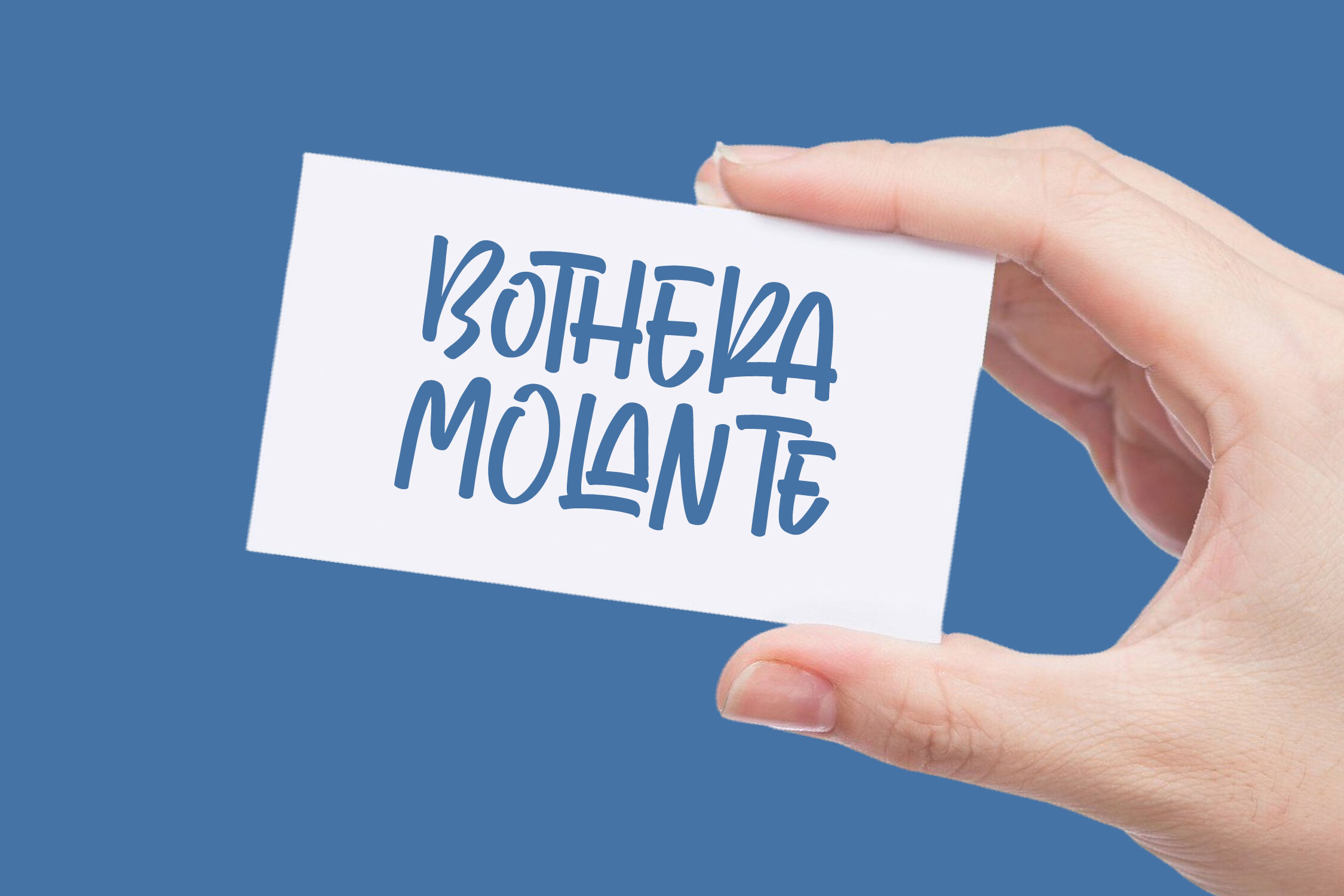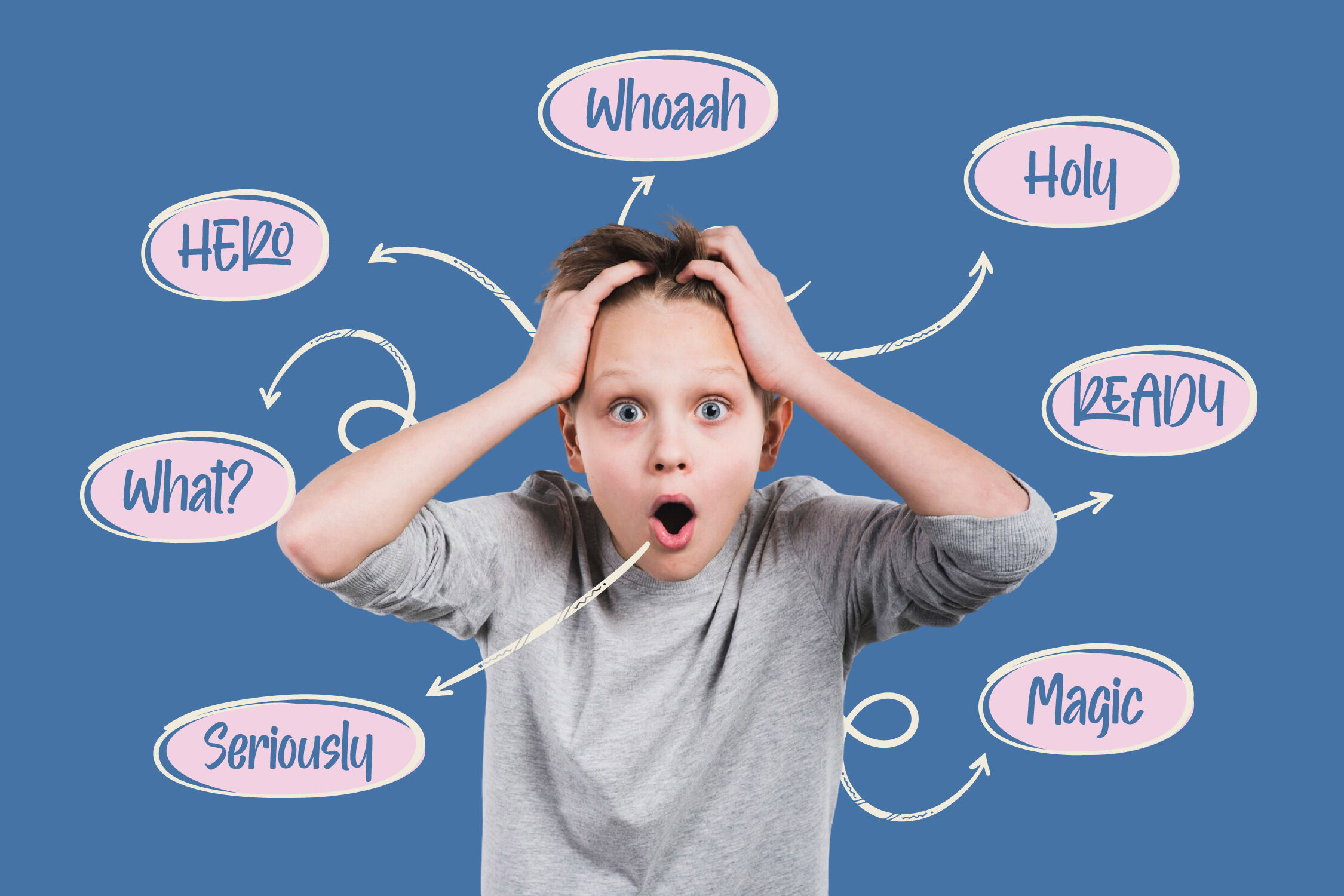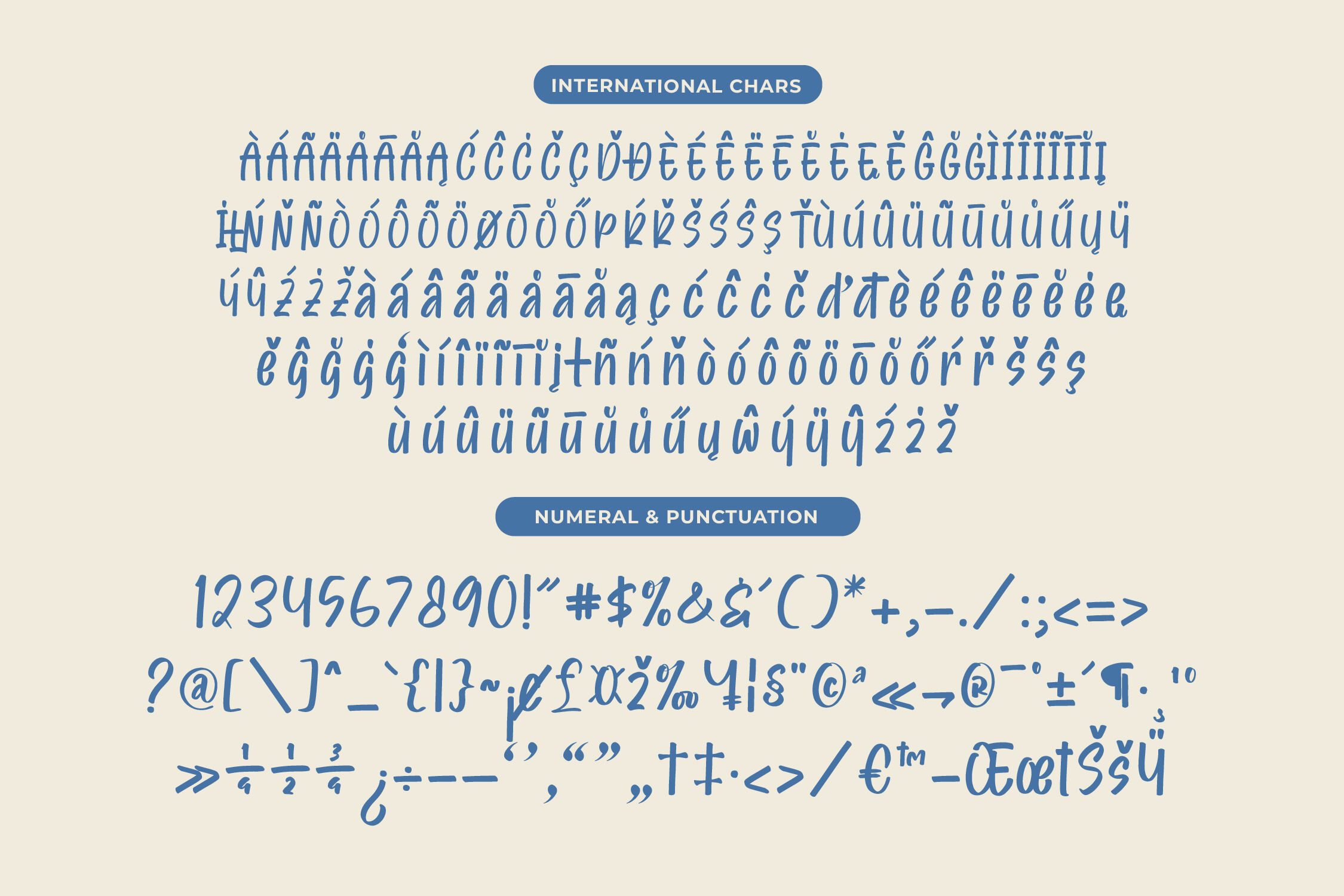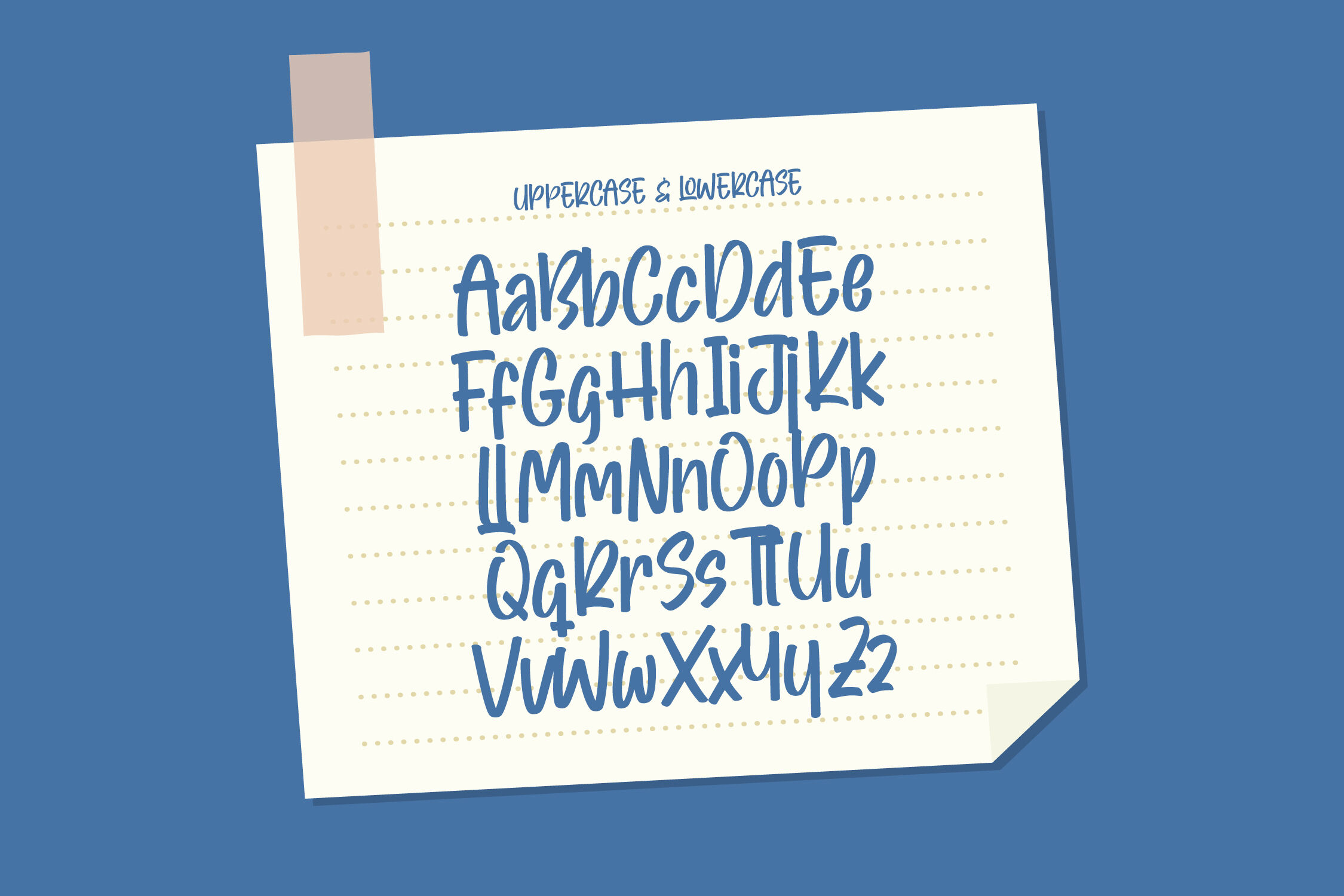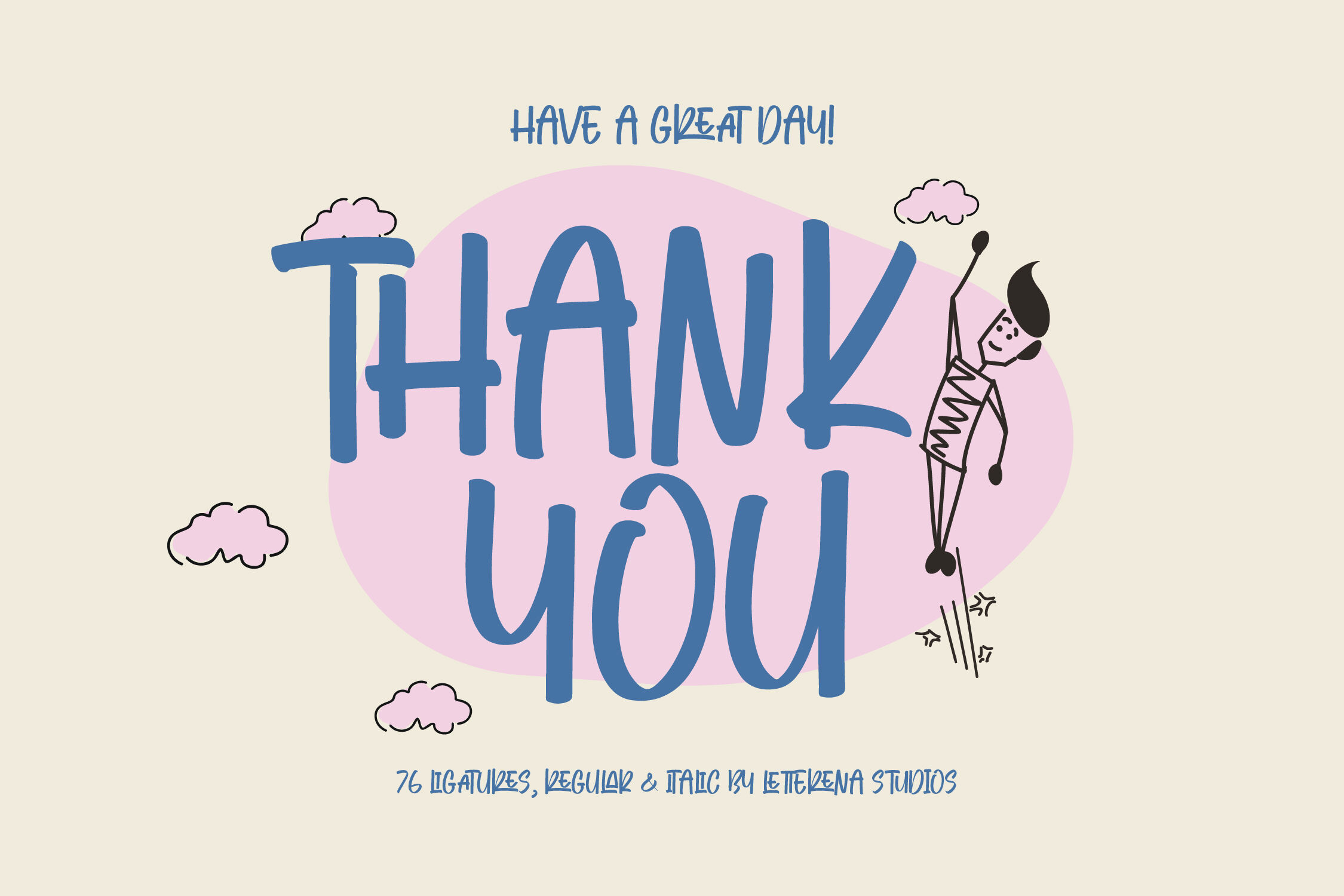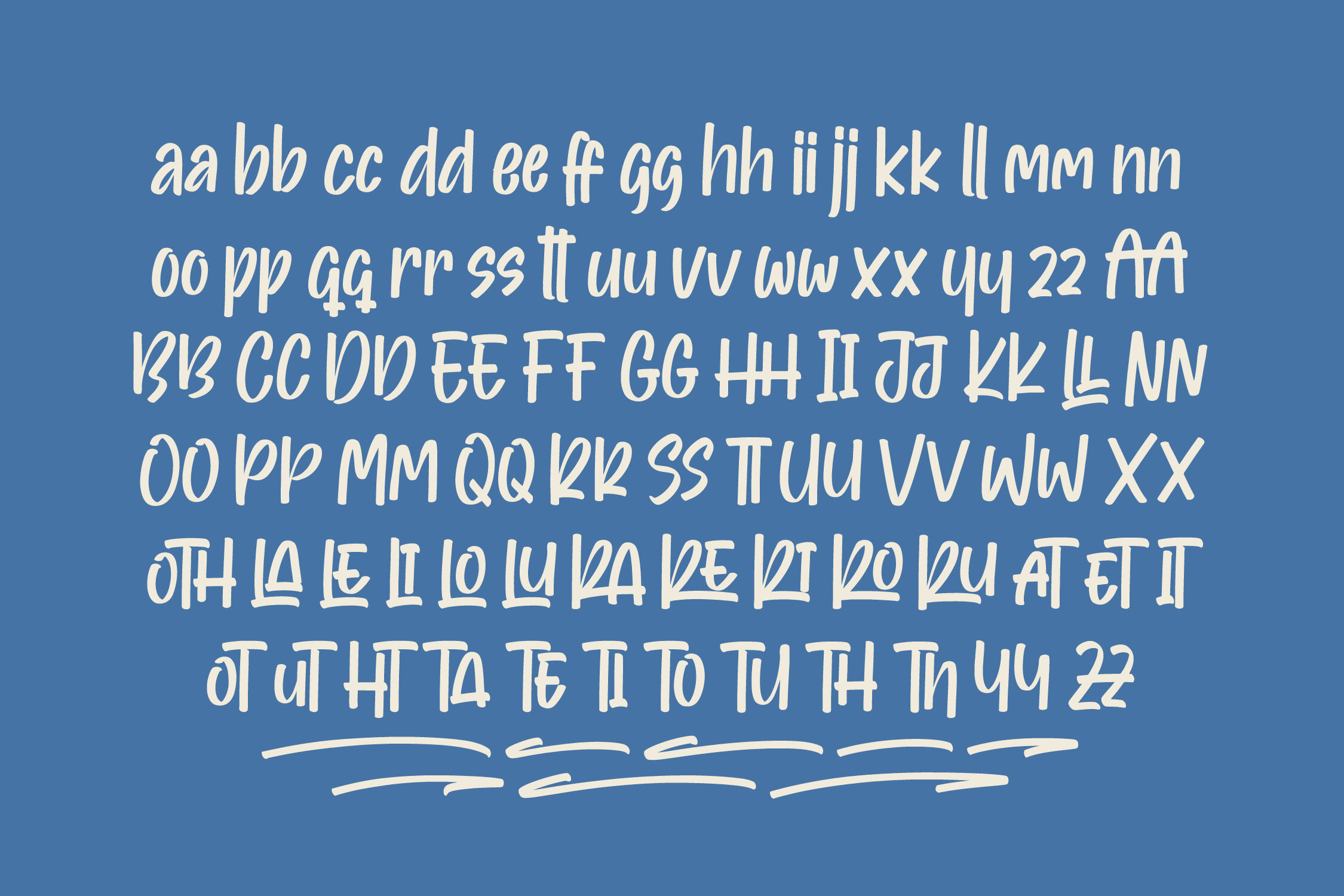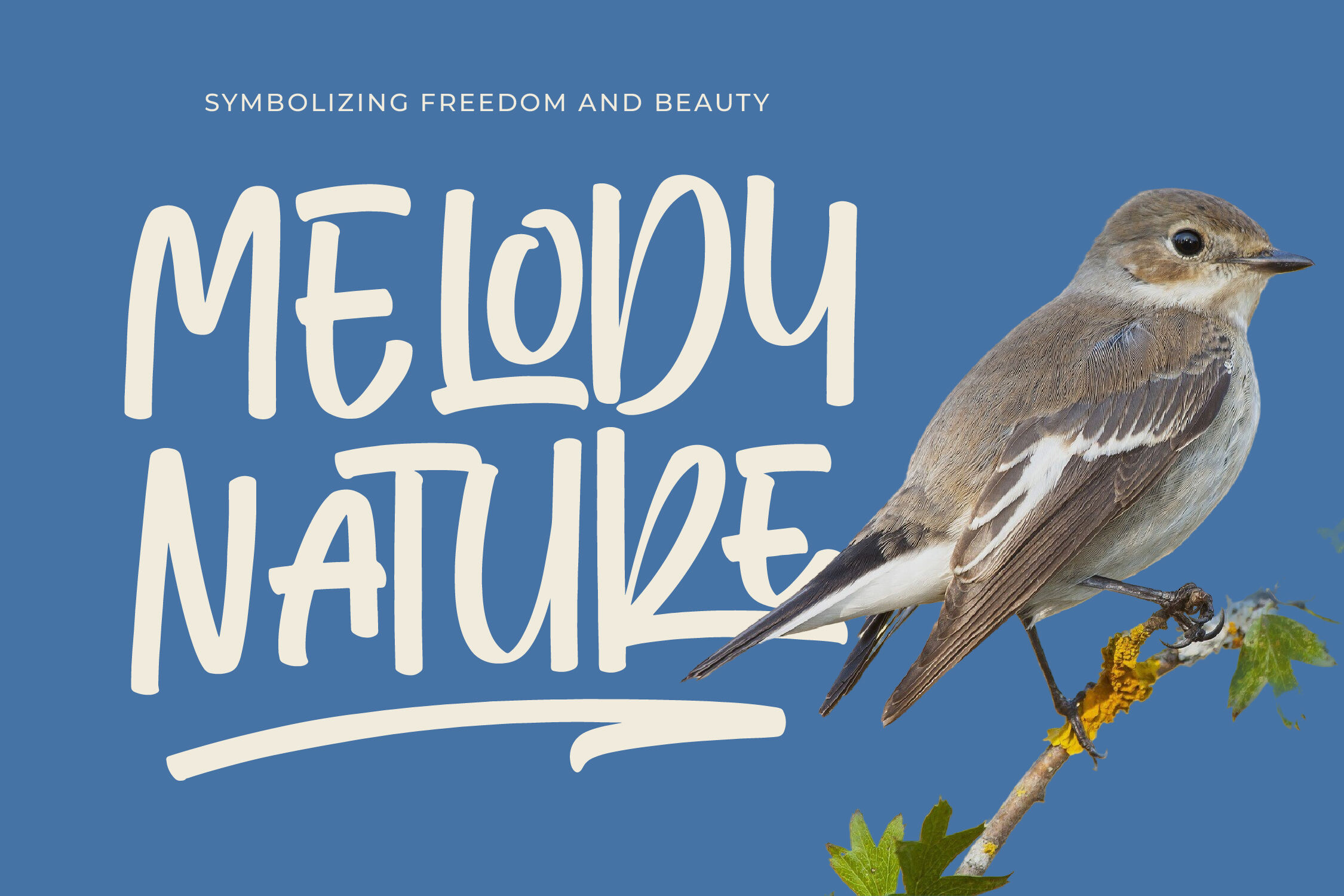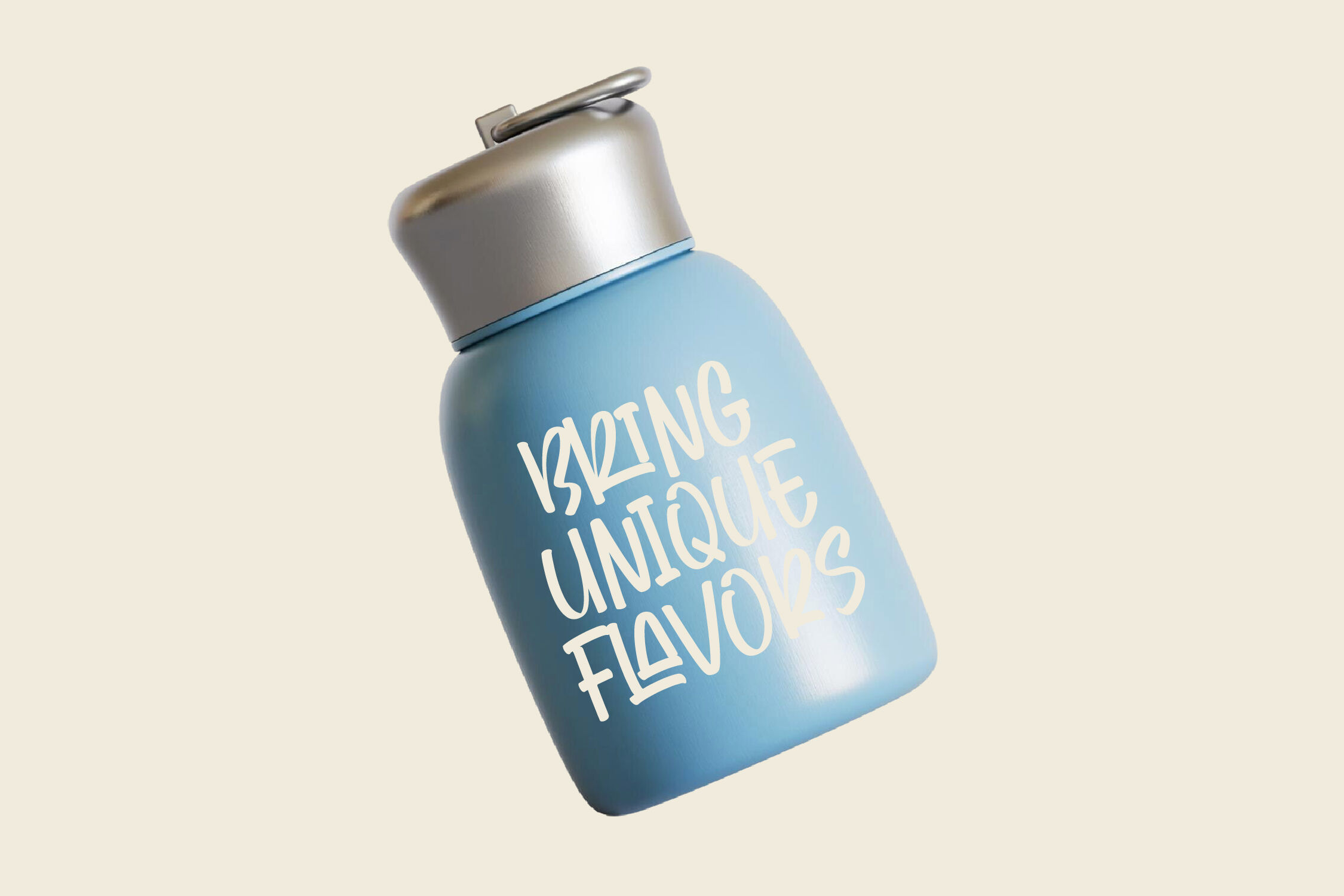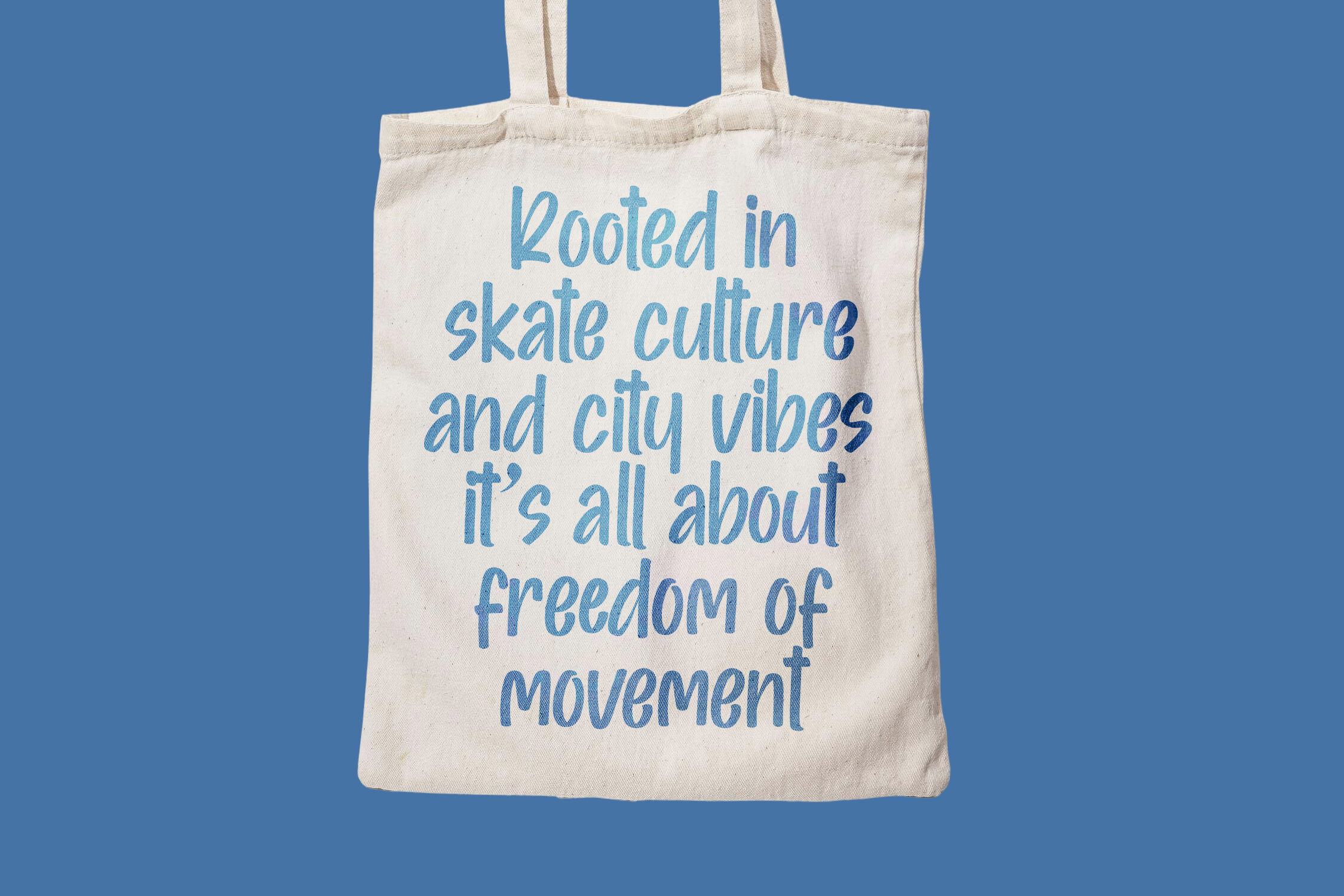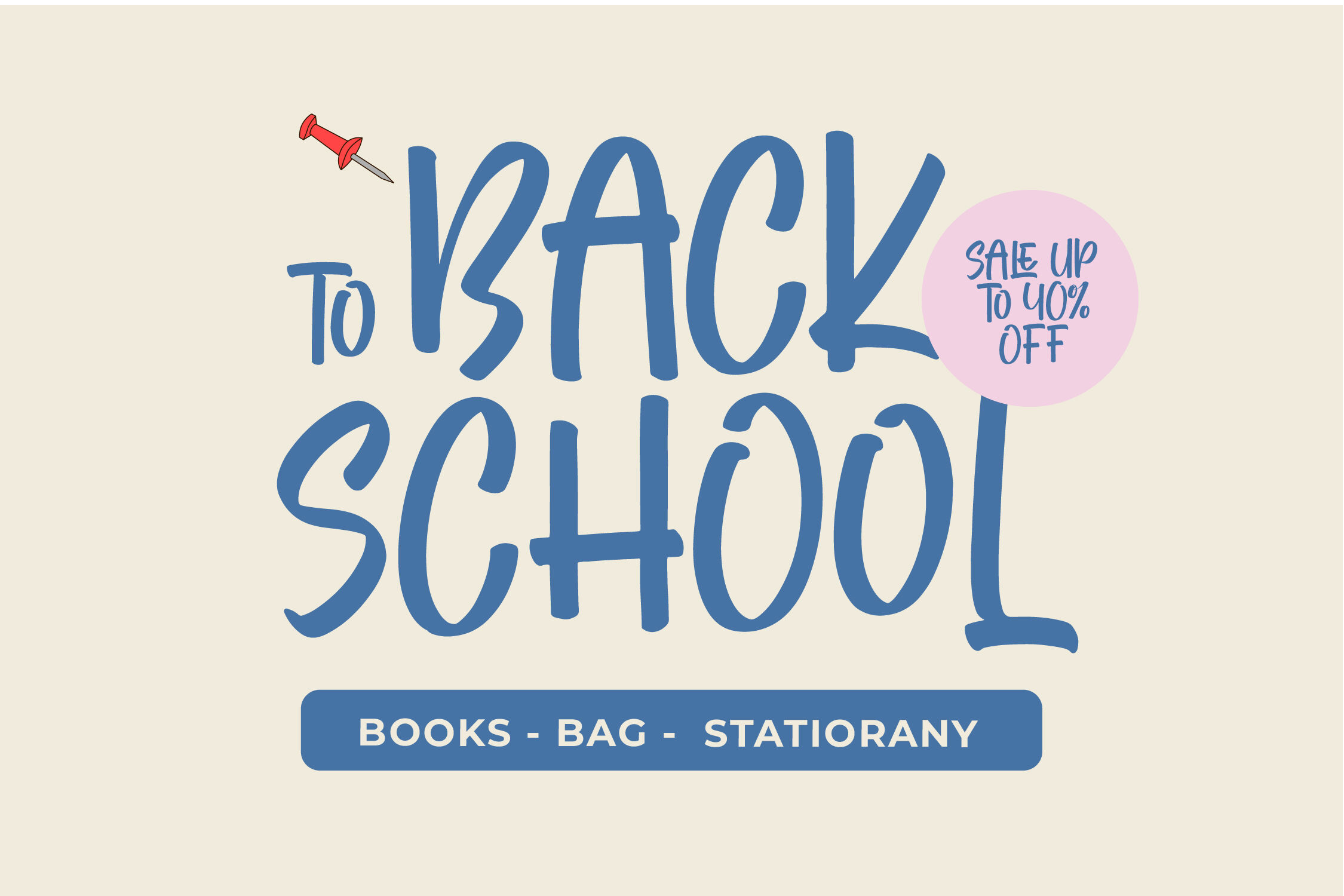
Smooth Dreams - Sticky Notes Font
Smooth Dreams - Sticky Notes Font , from Letterena, is a Luxury Script font, suitable for any projects such as: logos, branding projects, homeware designs, product packaging, mugs, quotes, posters, shopping bags, t-shirts, book covers, name card, invitation cards, greeting cards, label, photography, watermark, special events, and all your other luxury and beautiful projects that need a Luxury Script taste.
Smooth Dreams Italic
Smooth Dreams